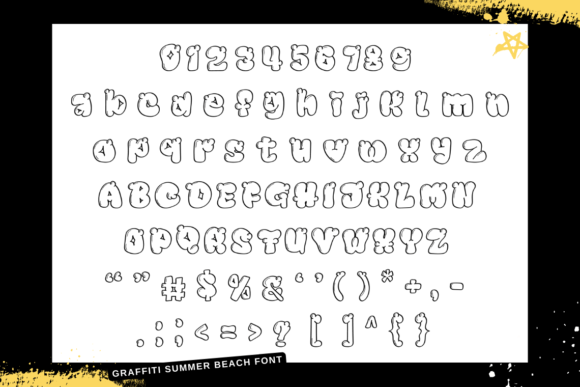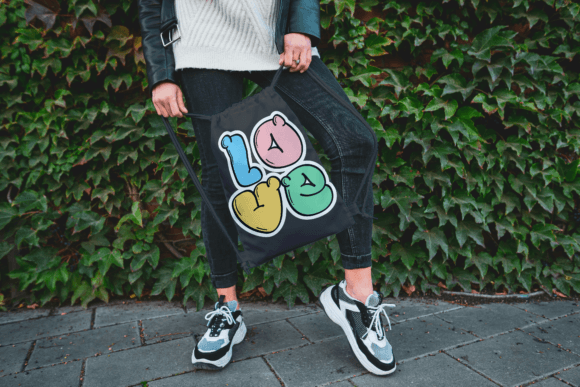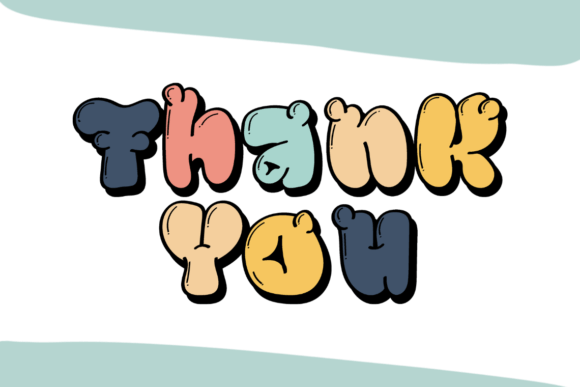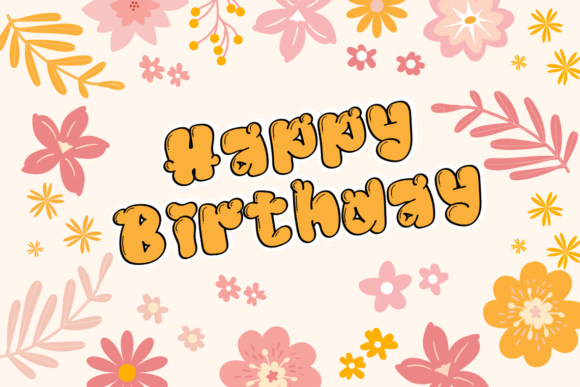
Unleash Your Creativity with Graffiti Summer Beach Font
Are you ready to add a splash of urban flair to your designs? Look no further than our Graffiti Summer Beach font! This handcrafted, handwritten font is the perfect companion for designers, crafters, and anyone looking to infuse their projects with a carefree, artistic vibe.
Inspired by Street Art Graphics
Our Graffiti Summer Beach font is inspired by the dynamic world of street art graphics. Each alphabet design is carefully crafted to capture the essence of urban expression, with bold lines, vibrant colors, and a dash of rebellious spirit. Whether you’re creating a holiday-themed design, planning a summer DIY project, or simply looking for a unique font to add to your collection, this font is sure to impress.
Perfect for Hand Lettering Enthusiasts
As a hand lettering enthusiast, you know how important it is to have a font that can keep up with your creative vision. Our Graffiti Summer Beach font is designed to deliver, with a range of characters and symbols that will help you bring your ideas to life. From bold and playful to elegant and refined, this font is perfect for adding a touch of personality to any project.
The versatility of our Graffiti Summer Beach font is one of its standout features. Use it to create eye-catching posters, flyers, and brochures, or add a touch of urban flair to your social media graphics, blog posts, and website designs. You can also use it to create stunning handmade crafts, such as scrapbook pages, journal entries, and card making projects.
Key Features of Graffiti Summer Beach Font
- Handcrafted with care: Each alphabet design is carefully crafted to ensure a unique and authentic look.
- Urban edge: Add a touch of rebellious spirit to your designs with our bold and vibrant font.
- Perfect for summer projects: Capture the carefree vibes of summertime with our fun and playful font.
- Hand lettering enthusiasts: Take your hand lettering skills to the next level with our range of characters and symbols.
Tips for Using Graffiti Summer Beach Font
To get the most out of our Graffiti Summer Beach font, here are a few tips to keep in mind:
- Experiment with colors: Our font is designed to work well with bold, vibrant colors. Try pairing it with bright hues to add an extra pop of personality to your designs.
- Mix and match: Don’t be afraid to combine our font with other design elements, such as patterns, textures, and graphics.
- Play with sizes: Our font works well in a range of sizes, from small and delicate to large and bold.